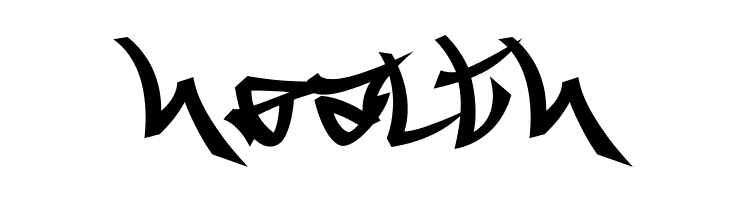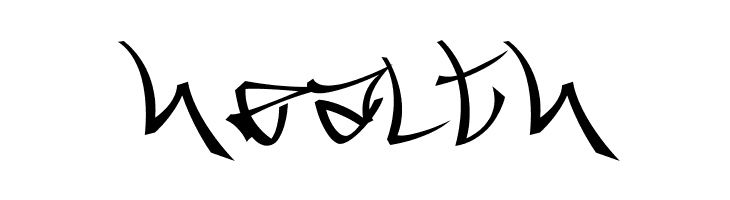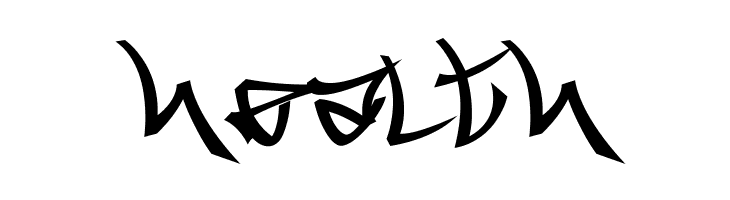
A bold, graffiti-inspired font with dynamic, artistic strokes.
A dynamic graffiti-style font with bold, angular strokes and sharp edges.
A bold, graffiti-inspired font with dynamic, angular strokes.
A bold graffiti-style font with sharp angles and fluid strokes.